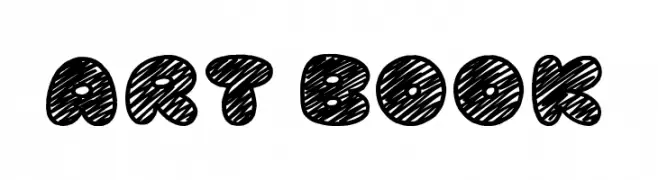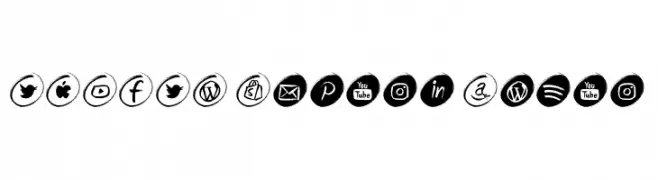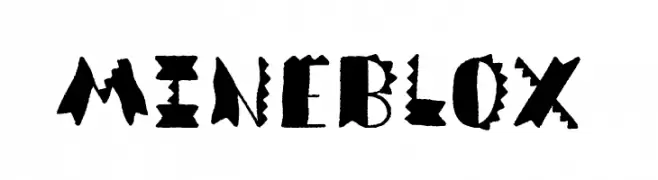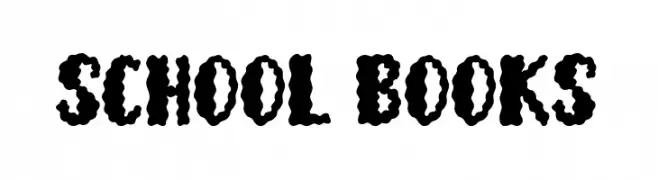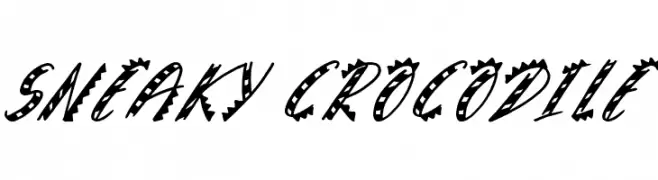
Seasons Font
A bold, brush-style script font with dynamic and expressive strokes.
Color Me Purple Font
Font by Jonathan S. Harris
A bold, playful font with a bubbly, organic design.
School Books Font
Font by Jonathan S. Harris
A bold, wavy, and playful decorative font with a dynamic texture.
Maybe Baby Font
Font by JSH creates
A bold, brush-style font with dynamic and expressive strokes.
Quaker Shaker Font
Font by Jonathan S. Harris
A bold, playful font with wavy, irregular outlines and a dynamic appearance.
Oasis Rising Font
Font by JSH creates
A bold, handwritten font with rounded strokes and a playful, dynamic style.
Jelly Cakes Font
Font by Jonathan S. Harris
A playful, wavy font with a jelly-like texture and bold, rounded characters.
Worship Music Font
Font by JSH creates
A bold, brush-style font with a hand-drawn, energetic appearance.
Sneaky Crocodile Font
Font by Jonathan S. Harris
A bold, jagged font with a playful, crocodile-inspired design.
Mirror Mirror Font
Font by Jonathan S. Harris
A bold, 3D hand-drawn font with textured hatching and a playful, comic-like style.
School Year Font
Font by Jonathan S. Harris
A bold, hand-drawn font with a playful scribble texture.
GRUNGE Social Media Font
Font by Jonathan S. Harris
Hand-drawn, grunge-style social media icon set with sketchy circular backgrounds.
Art Book Font
Font by Jonathan S. Harris
A bold, hand-drawn font with a playful, scribbled texture.
Yeti Sighting Font
Font by JSH creates
Playful handwritten font with rounded edges.
Mineblox Font
Font by Jonathan S. Harris
A bold, jagged font with a rugged, hand-cut appearance.
Cuddly Bear Font
Font by Jonathan S. Harris
A playful, hand-drawn font with bold, textured strokes and a whimsical style.
Panic Room Font
A sharp, thorny font with a dramatic and edgy appearance.
Score Ship Font
Font by Jonathan S. Harris
A decorative, hand-drawn font with tribal-inspired patterns and tall, narrow letters.
Smokey Kingston Font
Font by JSH creates